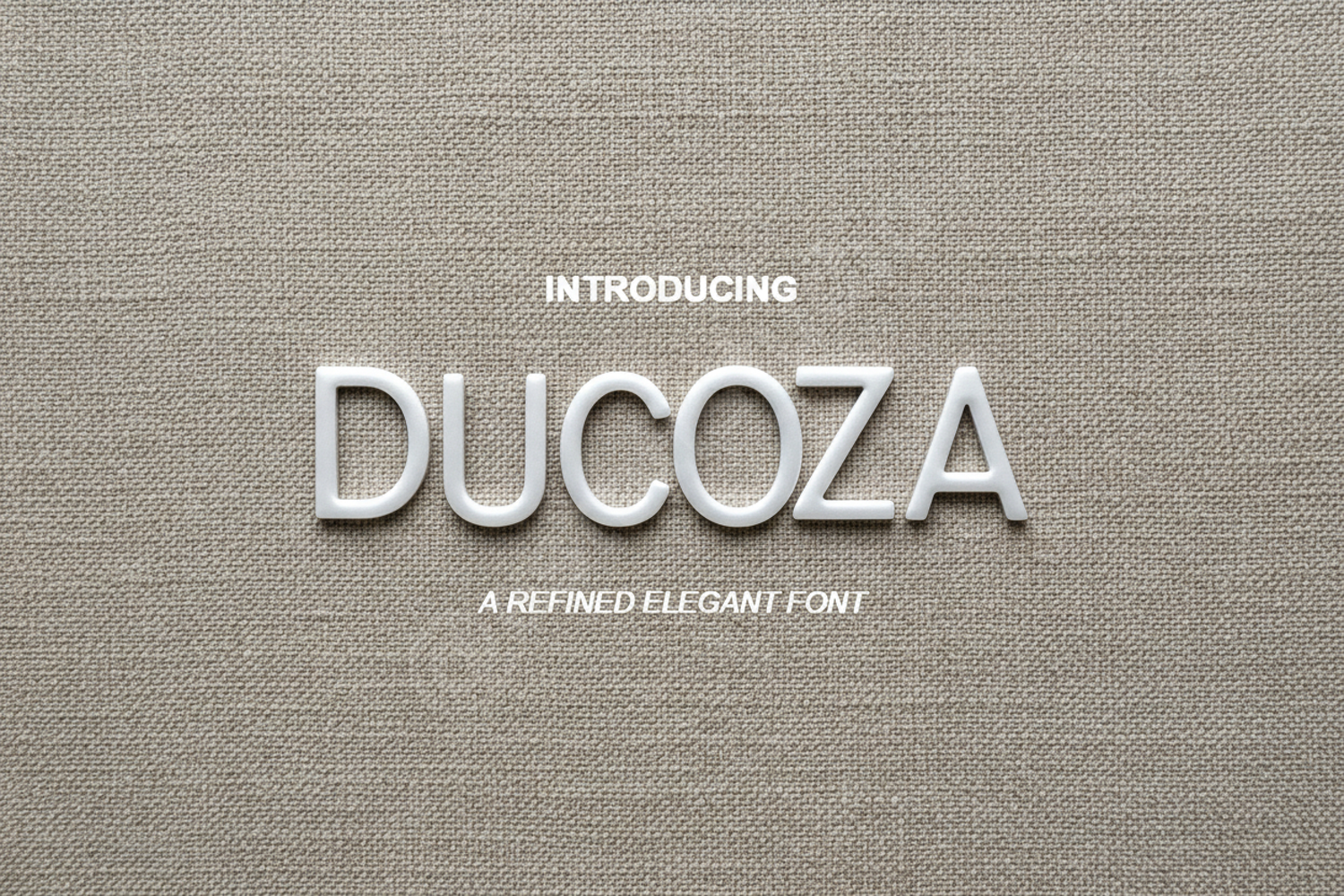
Ducoza - Elegant Modern Serif Typeface
Ducoza
Elevate your design projects with Ducoza, a premium serif font crafted for sophistication and high-end aesthetics. Ducoza blends classic proportions with modern, clean lines, making it an essential tool for designers seeking a balance of luxury and readability. Whether you are working on a minimalist layout or a bold editorial piece, this font provides the professional edge your work deserves.
- Luxury Branding and Identity: Create unforgettable logos and brand marks.
- Editorial Design: Perfect for magazine headers, body text, and sophisticated layouts.
- Wedding Stationery: Add a touch of timeless elegance to invitations and menus.
- High-End Packaging: Enhance product shelf appeal with premium typography.
- Social Media Graphics: Stand out with clean, professional aesthetic posts.
Ducoza - Elegant Modern Serif Typeface example image 1